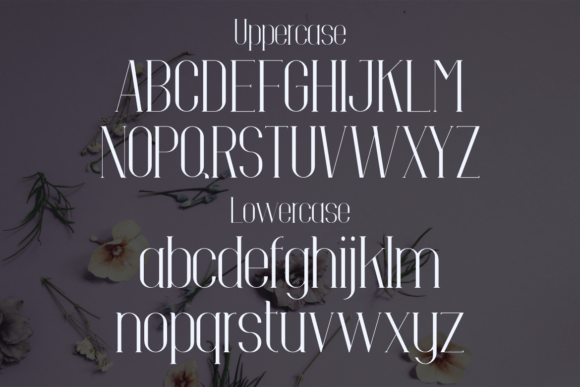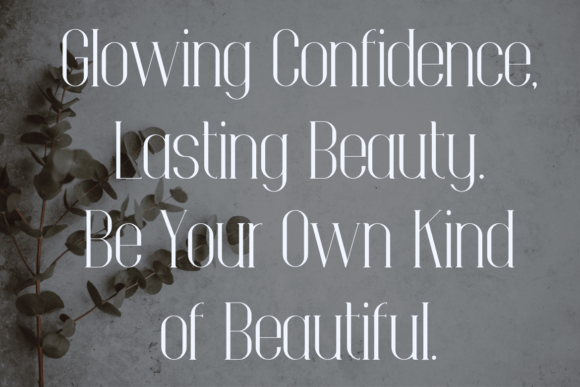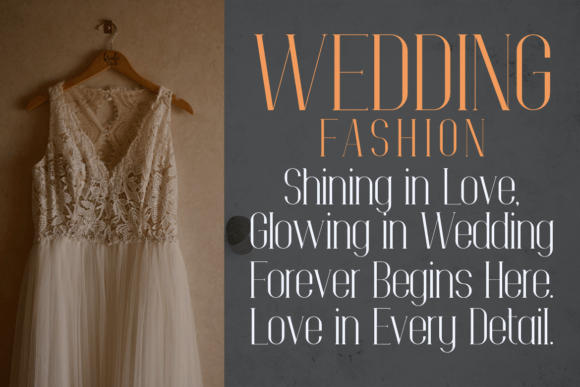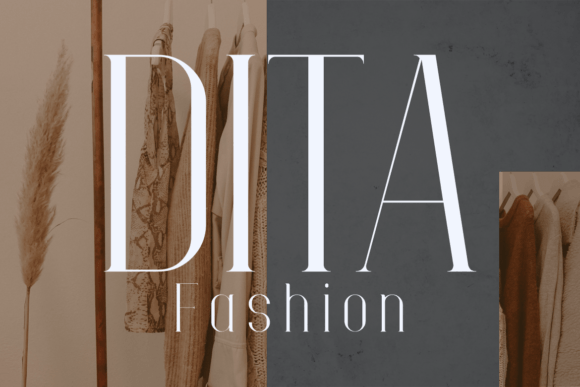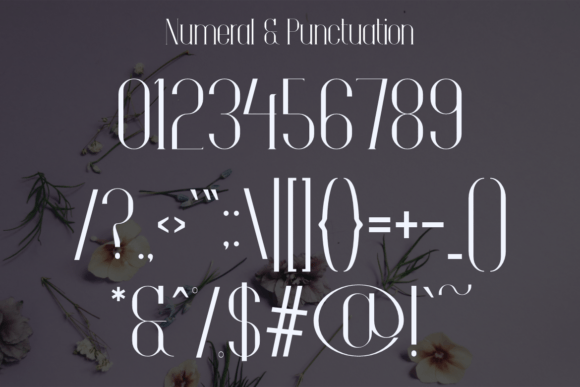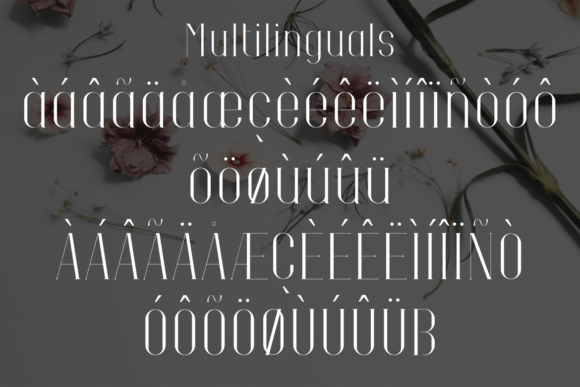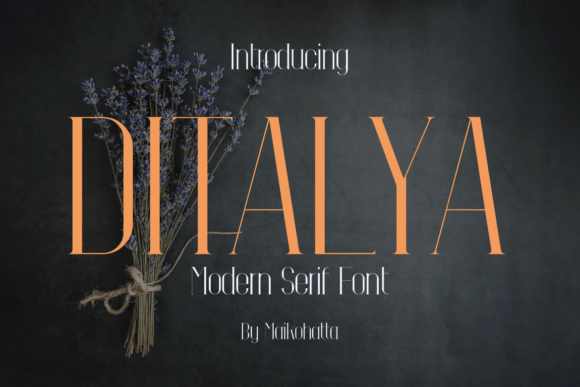
Ditalya Font: The Epitome of Elegance and Sharpness in Typography
In the realm of typography, few fonts manage to strike a balance between elegance and sharpness as effortlessly as Ditalya Font. This typographic masterpiece is a testament to meticulous design, where every letter is crafted with a keen eye for detail, ensuring balanced proportions and impeccable alignment. Ditalya Font is not just a typeface; it’s an experience, a statement that elevates any form of written communication into a work of art.
The Design Philosophy Behind Ditalya Font
The creation of Ditalya Font is rooted in a deep understanding of typographic history and a passion for innovation. Each character in the font is designed to stand out, yet simultaneously complement others, creating a harmonious flow that is pleasing to the eye. The design philosophy focuses on achieving a perfect balance between form and function, making Ditalya Font versatile enough for various applications, from traditional print designs to modern digital media.
Versatility of Ditalya Font
Ditalya Font’s versatility is one of its most compelling attributes. Its elegant and sharp features make it an ideal choice for a wide range of design projects. Whether you’re working on a luxury brand’s promotional materials, crafting the layout for a fashion magazine, or designing a wedding invitation, Ditalya Font brings a level of sophistication and class that is hard to match.
Applications in Print Design
In print design, Ditalya Font shines with its ability to convey luxury and professionalism. Its crisp lines and elegant curves make it perfect for:
- Brochures and Catalogs: Present your products or services in a stylish and compelling manner.
- Posters and Flyers: Grab attention with a font that stands out yet remains refined.
- Business Cards: Make a lasting impression with a card that exudes elegance and professionalism.
Applications in Digital Media
Ditalya Font also translates well to digital platforms, where its clarity and readability make it an excellent choice for:
- Websites: Enhance your website’s typography with a font that offers both style and legibility.
- Social Media Graphics: Elevate your social media presence with visually appealing graphics.
- Digital Advertising: Stand out in a crowded digital landscape with a distinctive and elegant typeface.
Why Designers and Crafters Love Ditalya Font
Designers and crafters appreciate Ditalya Font for several reasons:
- Uniqueness: It offers a unique aesthetic that sets it apart from more common typefaces.
- Versatility: Its adaptability to various design contexts makes it a valuable addition to any designer’s toolkit.
- Legibility: Despite its elegance, Ditalya Font maintains high legibility, ensuring that messages are conveyed clearly.
How to Use Ditalya Font Effectively
To maximize the impact of Ditalya Font, consider the following tips:
- Pair it with Complementary Fonts: Use Ditalya Font as a headline font and pair it with a simpler font for body text to create visual hierarchy.
- Experiment with Colors: While Ditalya Font looks stunning in black and white, experimenting with colors can add another layer of depth to your designs.
- Play with Sizes: Don’t be afraid to vary font sizes to create emphasis and guide the reader’s eye through your content.
Ditalya Font is more than just a typeface; it’s a design statement that brings elegance, sharpness, and sophistication to any project. Its meticulous design, versatility, and legibility make it an invaluable resource for designers and crafters looking to elevate their work. Whether you’re working on a high-end brand campaign, a personal project, or simply exploring the world of typography, Ditalya Font is sure to inspire and enhance your creative endeavors.